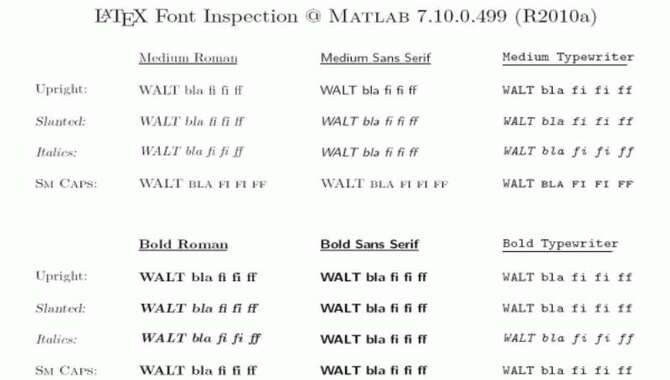
Changing the font in MATLAB can be a great way to customize your scripts and make them more readable. With just a few simple steps, you can change your text’s size, style, and colour to suit your preferences.
Whether you are working on a project for school or a professional setting, changing the font can help make your work stand out and look more polished. Matlab offers a variety of font options to customize the appearance of your code and figures.
Changing the font can improve readability and enhance the overall presentation of your work. We will cover everything from understanding fonts in MATLAB and their importance to changing default fonts and using them in graphics objects. We also provide tips and tricks for working with changing the font in Matlab and troubleshooting common font issues.
How To Change The Font In Matlab Explained
Changing the font in MATLAB is a simple process that can significantly improve the readability of your code and visualizations. To change the font, access the “Preferences” menu from the “Home” tab.
Select “Fonts” from here and choose the typeface and size you prefer. By selecting them from the drop-down menu, You can adjust the font settings for specific windows, such as the Editor or Command Window.
It’s important to note that changing the font may affect how your code appears on different devices, so it’s recommended to test your code on different screens after making any changes. Following these steps, you can easily customize the font in MATLAB to better suit your preferences and needs.
Understanding Fonts In MATLAB
MATLAB offers a variety of font options, including serif, sans-serif, and monospace. These can be easily customized using simple commands to change properties such as size, style, and colour. When selecting fonts for your code or visual output, it is essential to consider factors like audience and purpose for optimal readability.
Adding axes labels with specified font sizes or creating UI components with modified font styles are other ways to enhance your MATLAB experience.
What Are Fonts?
Fonts are sets of characters that share a consistent design and size. They display text in various applications, including word processing software, graphic design tools, and programming languages like MATLAB.
Fonts come in different styles, ranging from classic serif fonts to modern sans-serif fonts, each with unique characteristics that can enhance your work’s overall look and feel. Understanding how to use and customize fonts is essential for creating professional-looking documents and visualizations.
Why Are Fonts Important In MATLAB?
Fonts play a crucial role in MATLAB as they impact the readability and aesthetics of your code and visualizations. Using appropriate fonts can make your code more readable while enhancing the overall appeal of your outputs.
Additionally, you can improve your coding efficiency and workflow by customizing fonts to suit your preferences and needs. So, knowing how to change and use fonts effectively is essential for any MATLAB user.
Common Font Properties
In MATLAB, common font properties include font type, size, and colour. Arial, Times New Roman, and Helvetica are the most widely used fonts. Font size ranges from 8 to 72 points, while RGB values or predefined colour names specify the font colour. Users may also opt for boldness, italics or underlining effects on their text within the graphics objects such as axes labels or annotations.
Changing Font Properties In MATLAB
Customizing the font properties in MATLAB involves modifying font type, size, colour, and style. Commonly used font types are Arial, Times New Roman, and Helvetica. Font sizes may range from 8 to 72 points, with relative differences significant for text sizes below 12.
The ‘Font Weight’ and ‘Font Angle’ properties alter the font’s style while ‘set(groot, ‘default’)’ applies these changes to every text item in a figure.
How To Change Font Size In MATLAB
You can adjust the font size of the text in MATLAB by using the ‘Font Size’ property. This property can be applied to various text elements, including axes, labels, titles, and legends.
Defaulting at 10 points, you can use the ‘Font Size’ parameter to increase or decrease the text size as needed. Remember that balancing text size with other graphic elements is crucial for an aesthetic result.
How To Change Font Style In MATLAB
Customizing the font style in MATLAB is a breeze. Start by selecting from various fonts available through the “Font Name” property, like Arial or Times New Roman. You can even personalize font size and weight with properties such as “Font Size” and “Font Weight”. For global applications across your axis labels or graphics objects, try out the handy “Default Axes Font Name” property.
How To Change Font Color In MATLAB
To modify font colours in MATLAB graphics, you can use the “Color” property with either RGB values or predefined colour names like “red” or “blue”. After obtaining a handle on specific text elements such as labels or legends, utilize this property to alter their colours while ensuring contrast between foreground and background. This approach will make your visualizations more engaging and easier to comprehend.
5.What Are The Different Ways To Change The Font In MATLAB?
Ans: There are multiple ways to modify the font in MATLAB. One method utilises the “FontName” property, while another adjusts the size with “FontSize.” You can also use “FontWeight” for boldness and “FontAngle” to change the text’s angle.